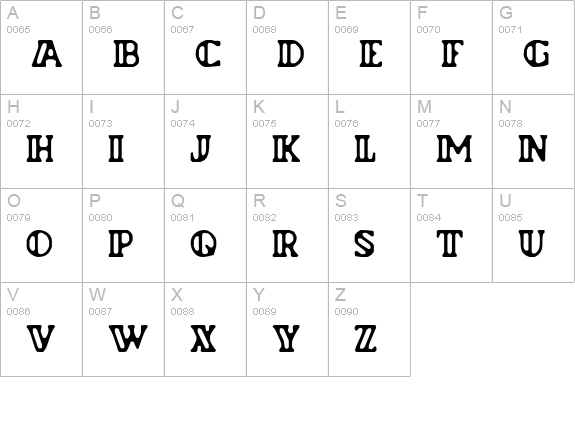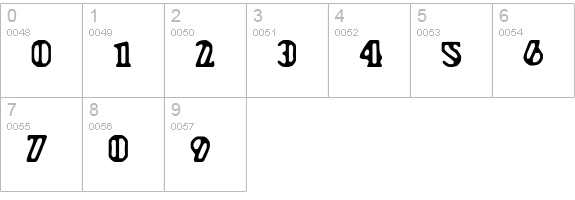
Introducing Flyman font, a sleek and modern typeface perfect for adding a touch of sophistication to your designs. This elegant font features clean lines and a stylish appearance that is sure to make your projects stand out. With its versatile design, Flyman font is suitable for a wide range of applications, from branding to editorial design. What's even better is that Flyman font is available for free download at FontsMarket.com. Take advantage of this amazing offer and elevate your design projects with this stunning typeface. Don't miss out on the opportunity to enhance your work with the timeless beauty of Flyman font. Download it now and let your creativity soar!